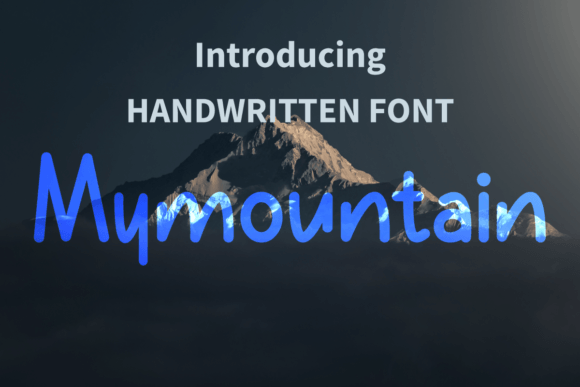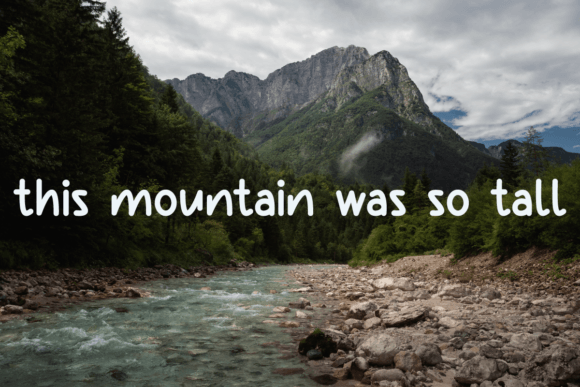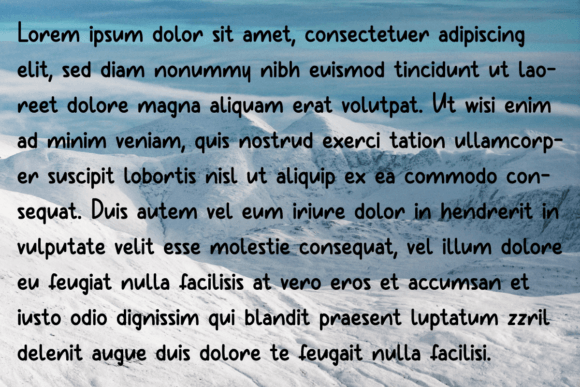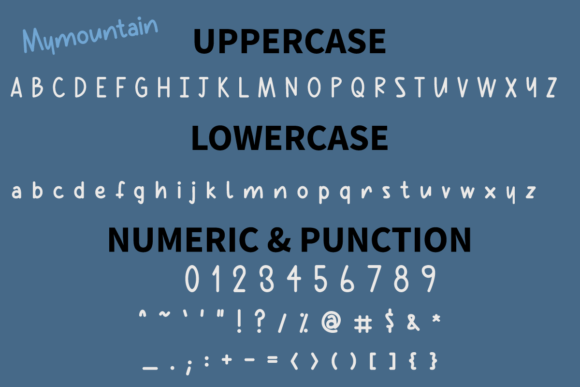
About Mymountain Font
Mymountain is a fun and friendly handwritten font. Whimsical and a bit quirky, this font will brighten up each of your designs. Add it confidently to your projects, and you will love the results. This typeface is perfect for logos, wedding invitations, quotes, advertisements, print, magazines, and more!